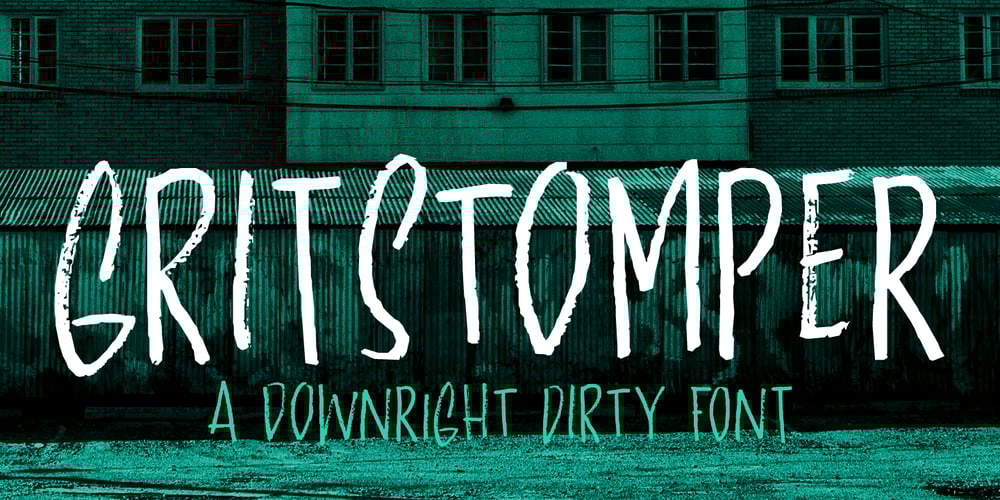
Gritstomper Font Family was designed by David Kerkhoff and published by Hanoded. Gritstomper contains 2 styles and family package options. Gritstomper is a gritty, charcoaly, pencilly font. Quickly written, handcrafted and with sharpened edges. Comes with a full load of diacritics, double letter ligatures for the lower case and a boss-like attitude.